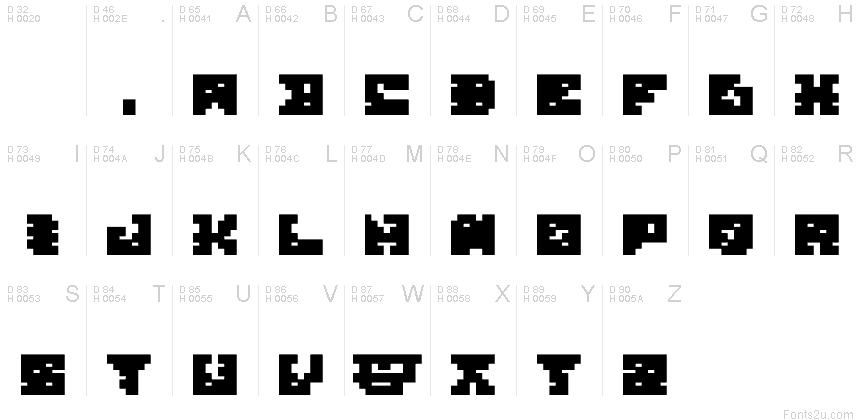
00ne Not so Atroce Pixels BLACK by neurone error of FontShop International is a free abstract pixel dingbat font assembled from rectangular blocks. Its grid-bound forms recall early computer displays through hard edges and abrupt shifts of scale.
Digital graphics are its clearest setting. The blocky symbols can become interface markers, game graphics, or electronic music artwork, drawing on the shorthand of low-resolution screens. On packaging, the same modular shapes could form a compact tech label or product identity.
00ne Not so Atroce Pixels BLACK is based on 00ne Not so Atroce Pixels by neurone error (http://fontstruct.fontshop.com/fontstructors/neurone_error), which is based on pixel atrocities by ssaamm (http://fontstruct.fontshop.com/fontstructors/ssaamm_1)